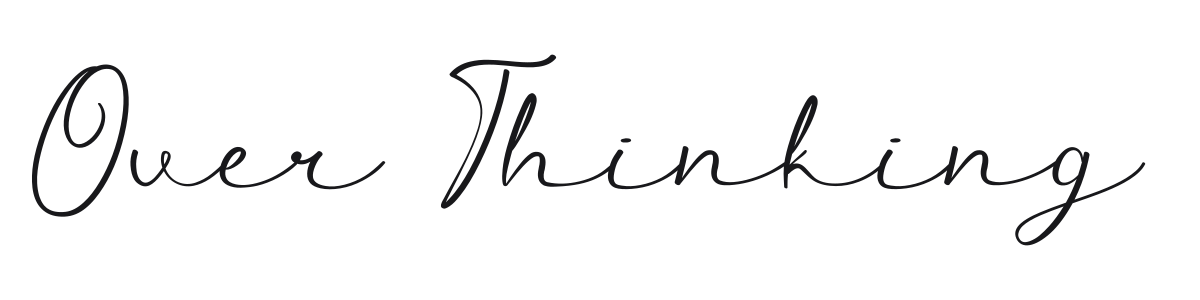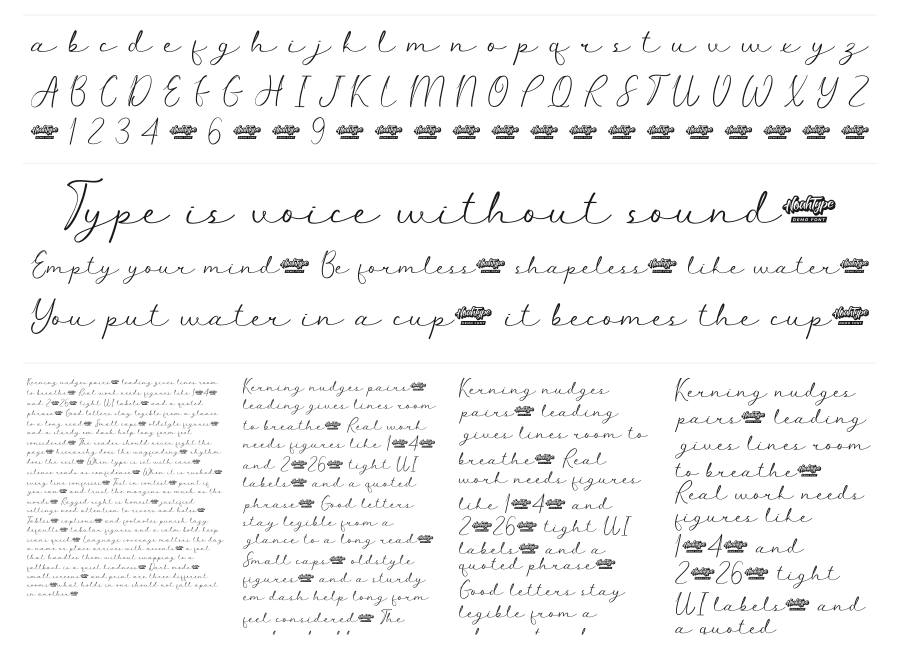
Over Thinking
Over Thinking is a thin, flowing cursive script with long looping ascenders and descenders that give it an effortless, handwritten charm. The near-monoweight strokes and graceful letter connections evoke classic penmanship without feeling stiff or formal. It works best at large sizes where the ribbon-like flow of the script can breathe.